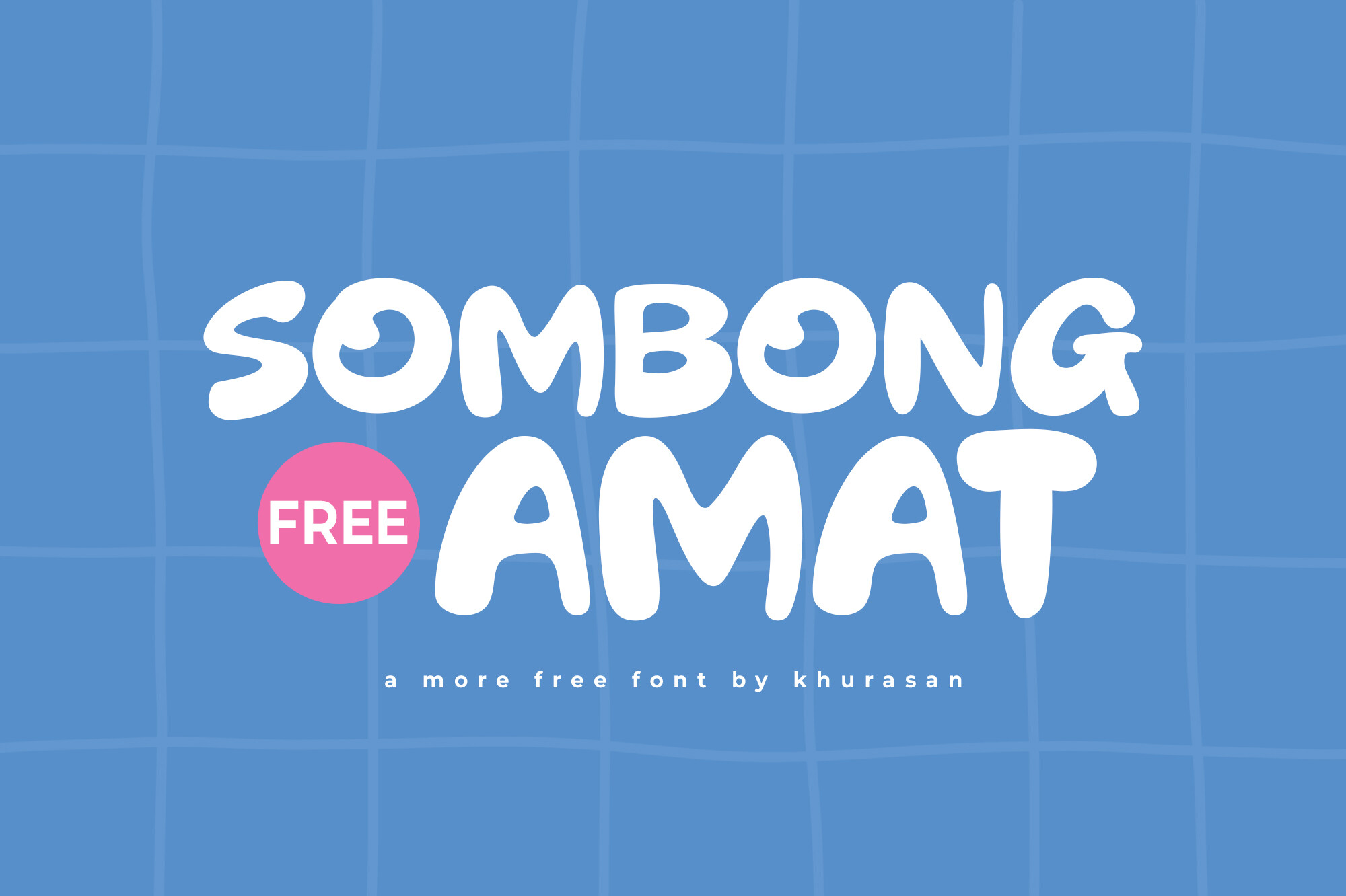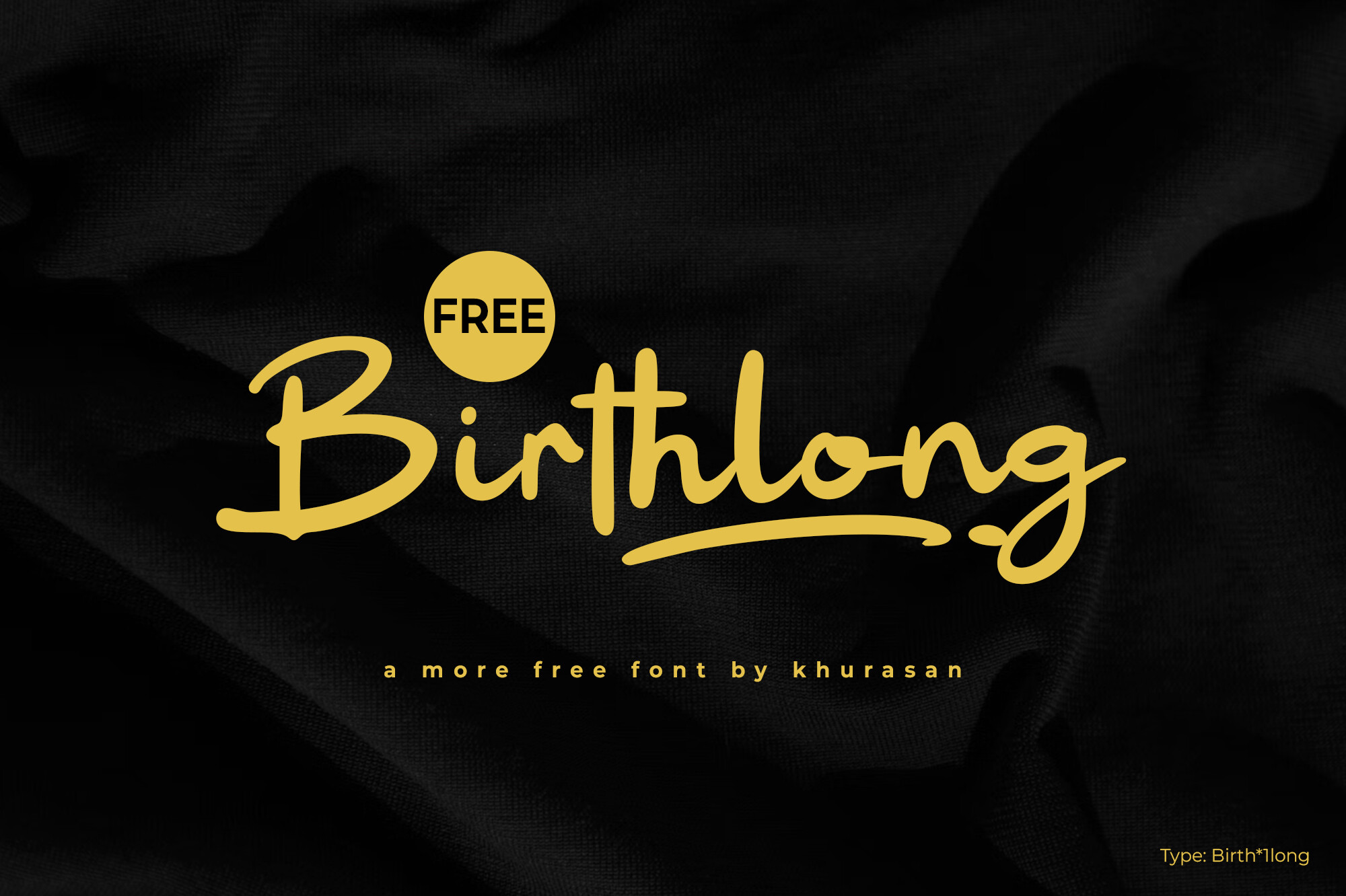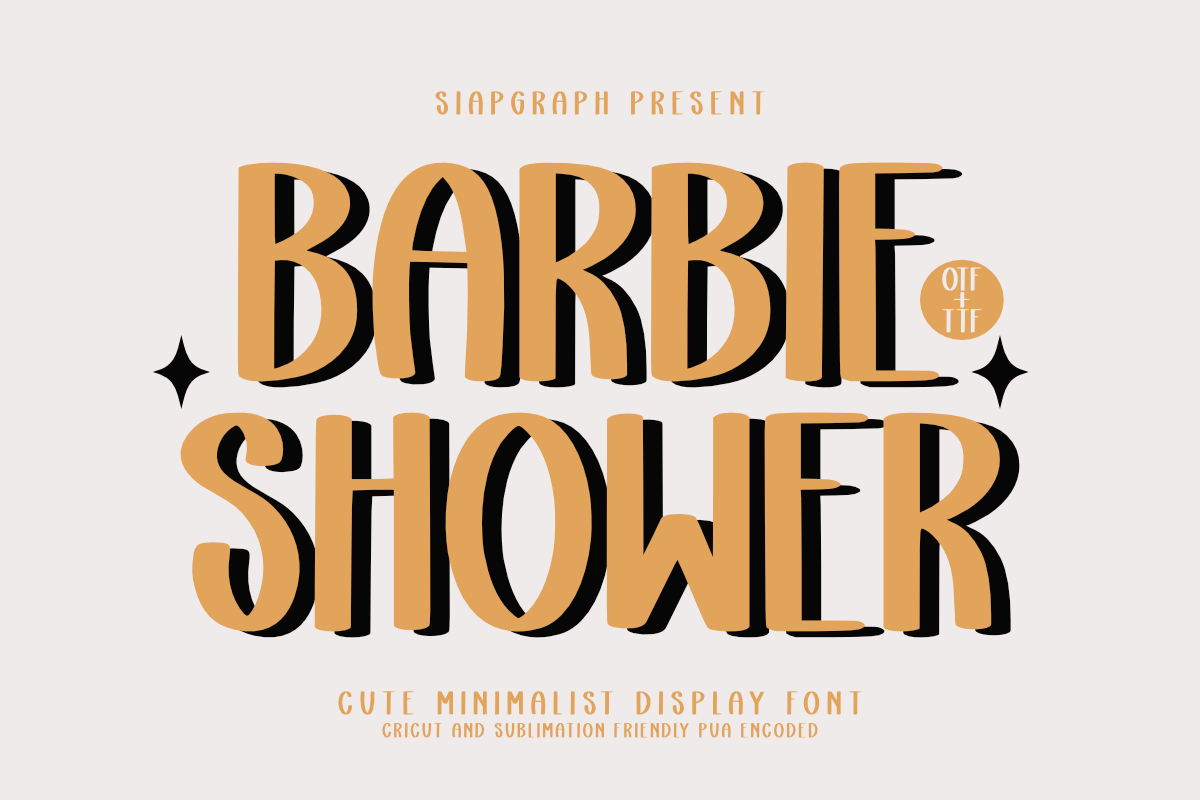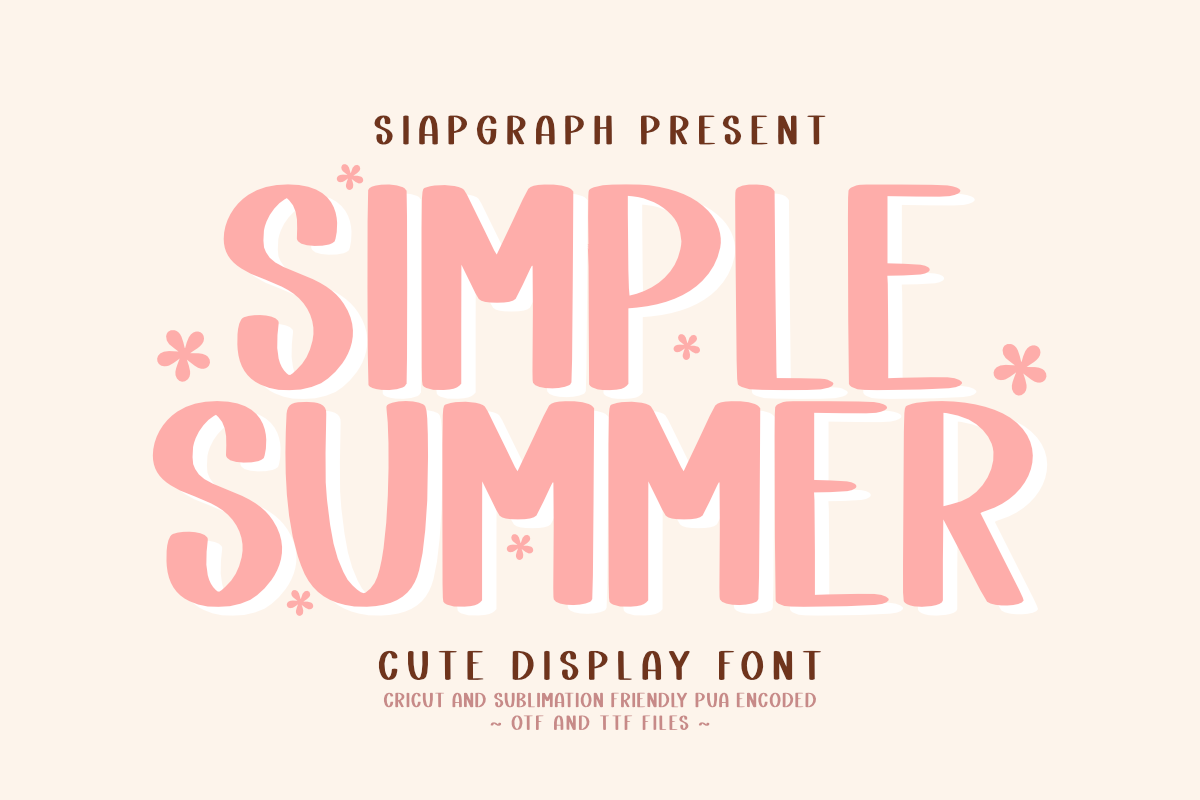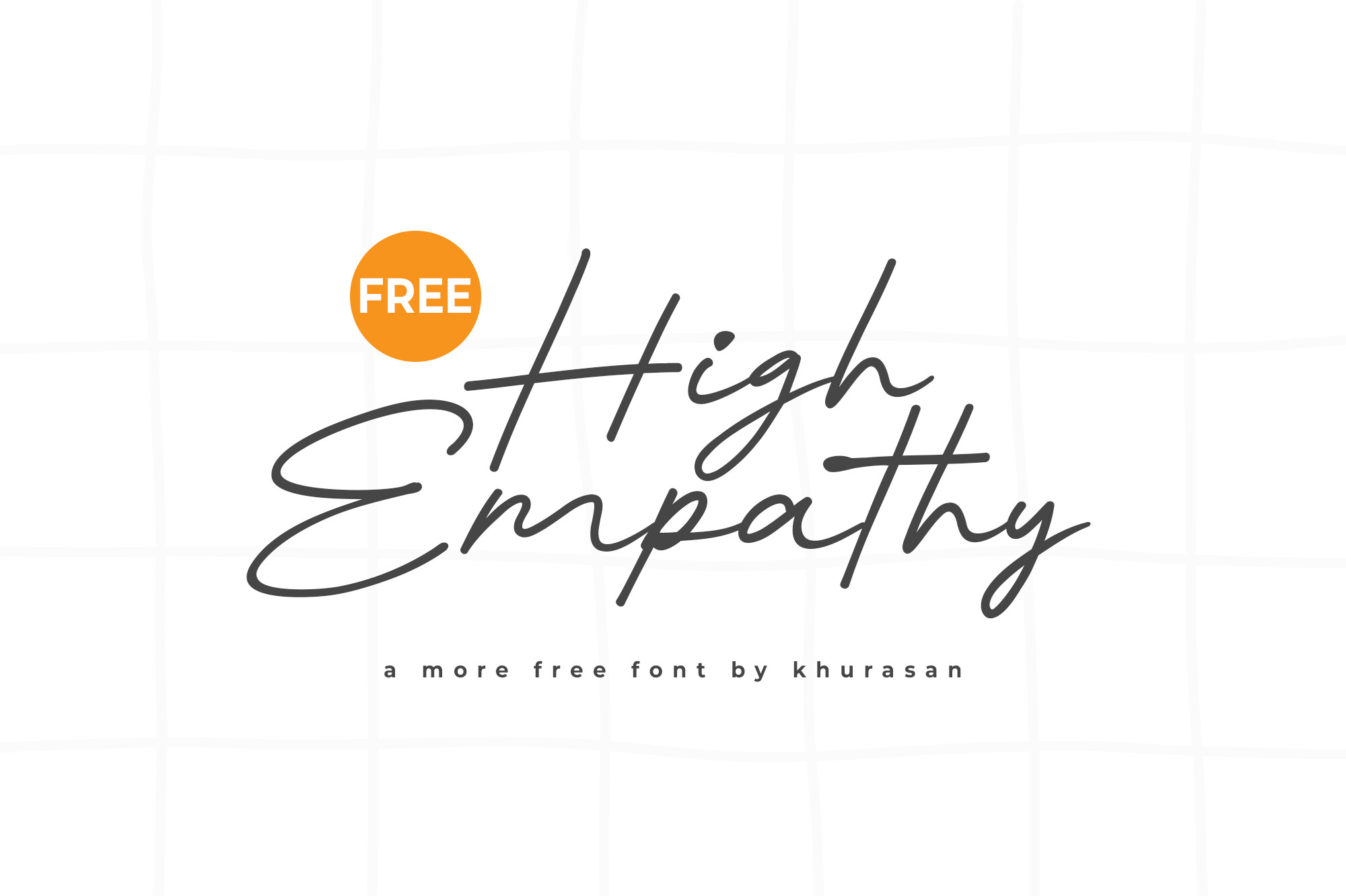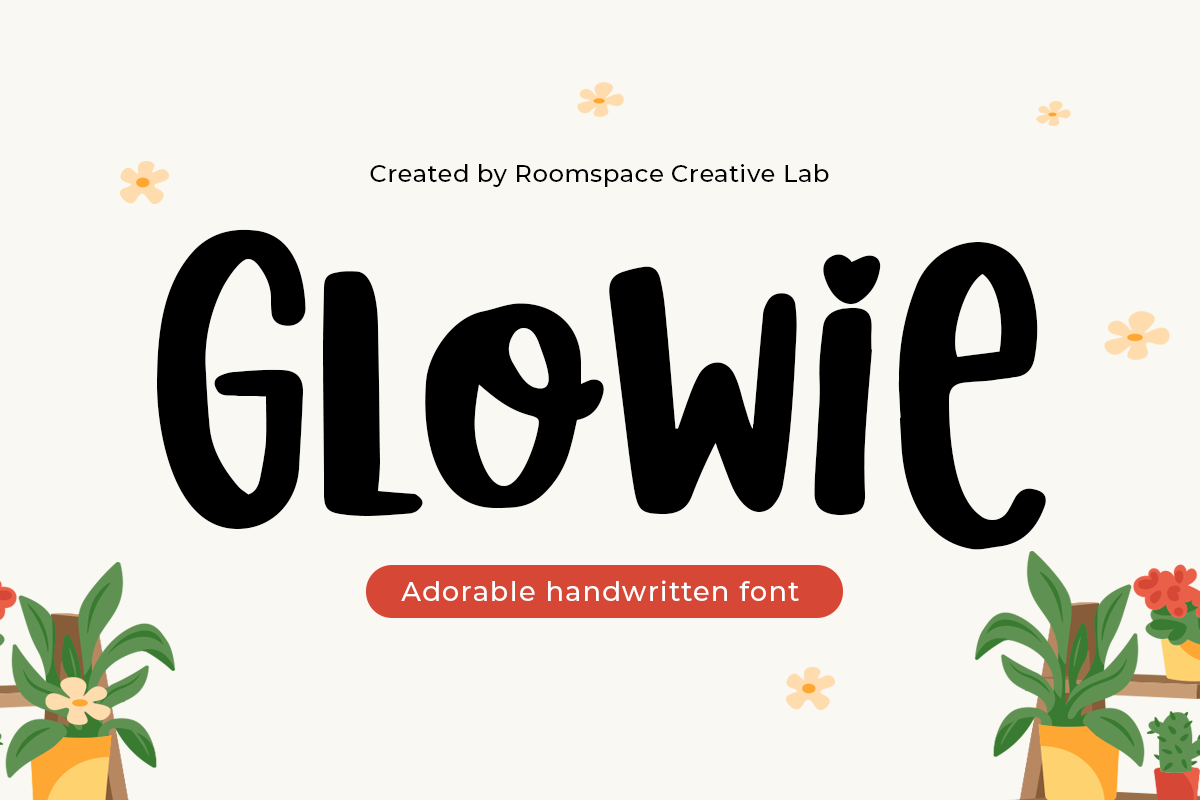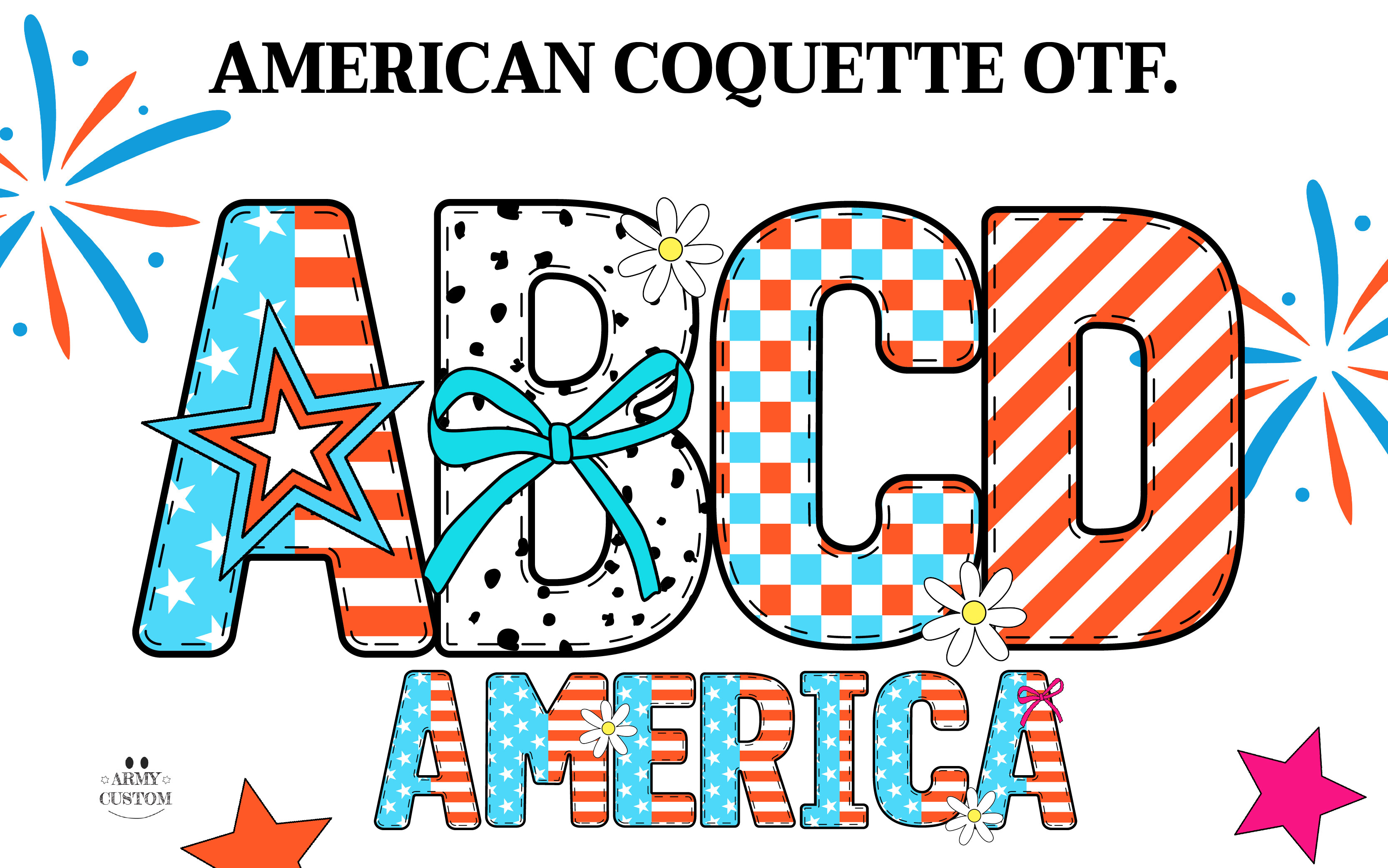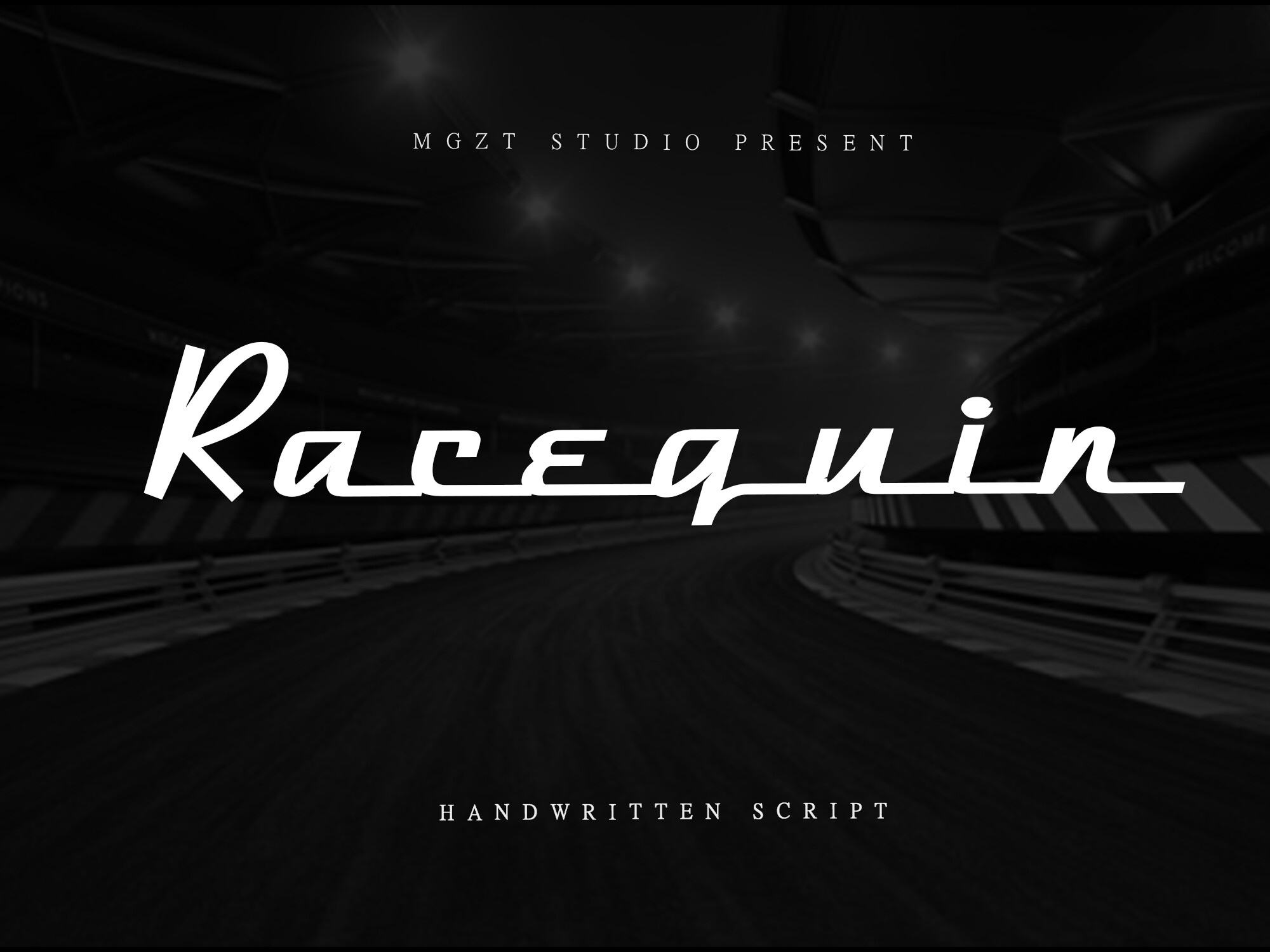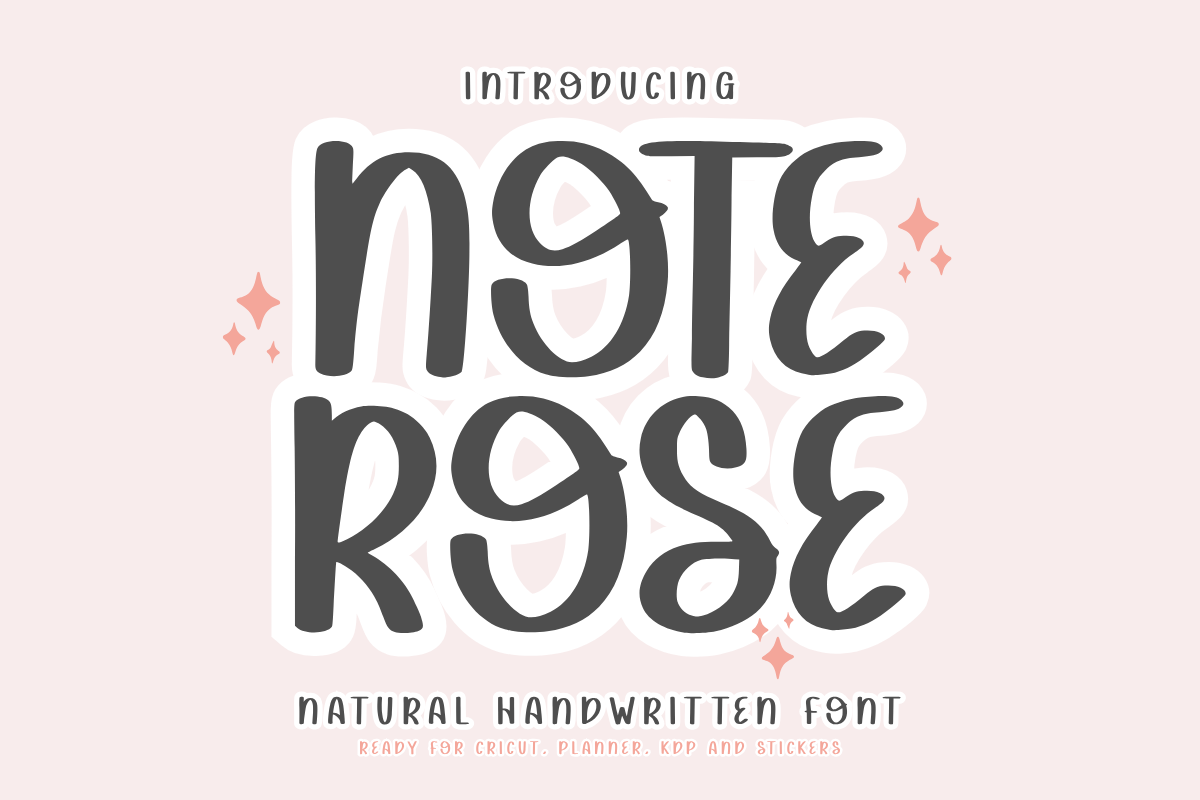
Welcome to this week's edition of Free Fonts Friday! We're excited to present a curated selection of 10 amazing fonts, all available for free and perfect for commercial use. From playful display fonts like Sombong Amat and Barbie Shower to elegant scripts such as High Empathy and Glowie, these fonts are designed to elevate your creative projects. Whether you're crafting unique logos, designing invitations, or enhancing your branding, these fresh typefaces will add a touch of personality and flair. Let’s dive into this week’s collection and discover how each font can inspire your next design!
Sombong Amat
Sombong Amat is a delightful modern display font, perfect for infusing a cute flair into your designs. Ideal for creating eye-catching posters, logos, and magazine covers, this font shines in various creative endeavors. Its unique style effortlessly complements a wide range of projects, from banners to book covers. Embrace the charm of Sombong Amat to elevate your design work, making it stand out in any context. Whether you're crafting playful invitations or striking advertisements, this font will add a touch of creativity and personality to your artwork.
Birthlong
Birthlong is a stylish modern script font that captures the essence of creativity and elegance in every letter. Perfect for a variety of applications, including posters, logos, and book covers, this font adds a touch of sophistication to your designs. Its versatile nature allows for seamless integration with numerous projects, making it an essential addition to any designer's toolkit. Use Birthlong to craft beautiful banners and invitations, as its flowing lines and graceful curves will surely make your designs stand out in any context.
Barbie Shower
Barbie Shower is a whimsical and minimalist display font that adds a delightful touch to any creative project. Tailored for sublimation, printable designs, and DIY crafts, this font features playful letter characters that shine in invitation designs, labels, and greeting cards. Its unique aesthetic allows it to stand out in digital decorations and makes it a perfect choice for those seeking to create charming and inviting visuals. Whether you're designing for personal or commercial use, Barbie Shower will add a cheerful vibe to your work.
Simple Summer
Simple Summer is a delightful and fun display font that captures the essence of summer creativity. Specifically designed for crafters, budding designers, and Cricut users, it offers a unique character that enhances your projects. This font is ideal for crafting everything from stickers to t-shirts, invitations, and labels. Its playful nature makes it a perfect choice for designs that call for a lighthearted touch. Add Simple Summer to your creative arsenal to bring a sense of joy and freshness to your design work, making it truly memorable.
High Empathy
High Empathy is a contemporary and charming script font that resonates with warmth and creativity. Perfect for various applications such as posters, logos, and book covers, this font is designed to bring your ideas to life. Its fluid strokes and engaging curves allow it to adapt beautifully across multiple projects, ensuring that your designs will capture attention and delight your audience. Use High Empathy to create stunning visuals that convey your message effectively while adding a personal touch to your creative endeavors.
Strong
Strong is an elegant serif font that commands attention with its striking contrasts and clean lines. This sophisticated typeface is perfect for luxury branding, magazine headings, and upscale packaging. Each character is designed with subtle artistic curves that blend classical elegance with a contemporary edge. Whether you're designing for high-end fashion editorials or premium products, Strong will add a touch of refinement and prestige to your projects. Elevate your designs with this font, which embodies both confidence and grace.
Glowie
Glowie is an enchanting handwritten font that infuses charm and personality into any design. With its playful curves and whimsical style, this font is perfect for creating beautiful and authentic visuals. Ideal for feminine branding, social media graphics, product packaging, and invitations, Glowie adds a joyful touch to your projects. Let your creativity shine with this unique script font, which is designed to make your text look effortlessly cute and stylish. Elevate your designs with Glowie, and watch your ideas come to life.
American Coquette
Capture the spirit of patriotism with American Coquette, a font that embodies the essence of American aesthetics. Inspired by the charm of the United States, this font is perfect for celebrating patriotic occasions and adding flair to your designs. Its unique style and elegant curves make it suitable for invitations, posters, and branding that pays homage to the Land of the Free. Use American Coquette to infuse your projects with a sense of pride and creativity, making it an ideal choice for any design that seeks to evoke an American spirit.
Racequin
Racequin is a stylish script font that draws inspiration from retro signage and vintage designs. This font perfectly captures a timeless aesthetic that evokes nostalgia while remaining contemporary. Its elegant characters make it an excellent choice for creating standout logos, branding, and promotional materials that seek to blend the past with present trends. Whether you're working on a creative project that needs a touch of retro flair or simply want to add a unique twist to your designs, Racequin will deliver distinctive and stylish results.